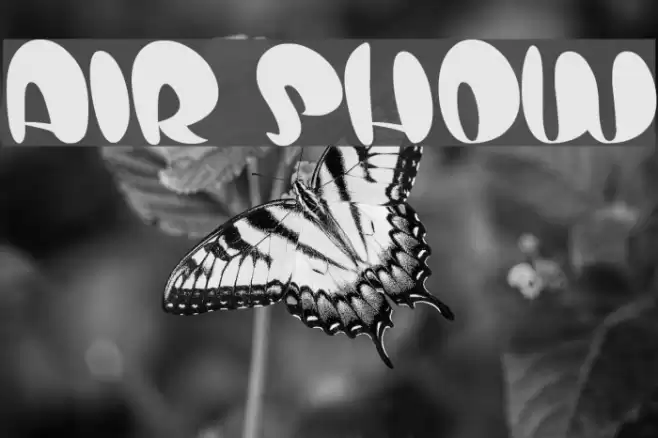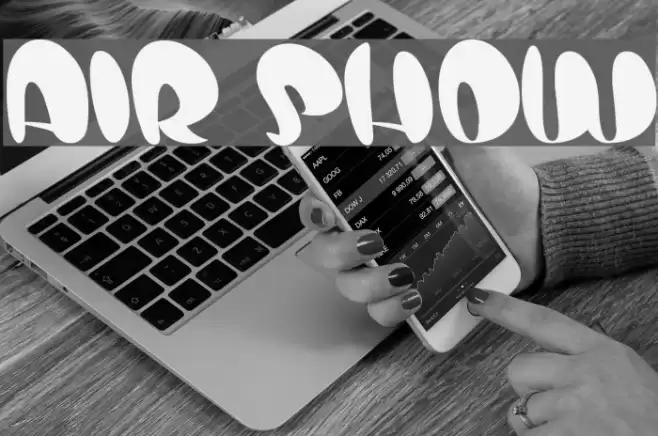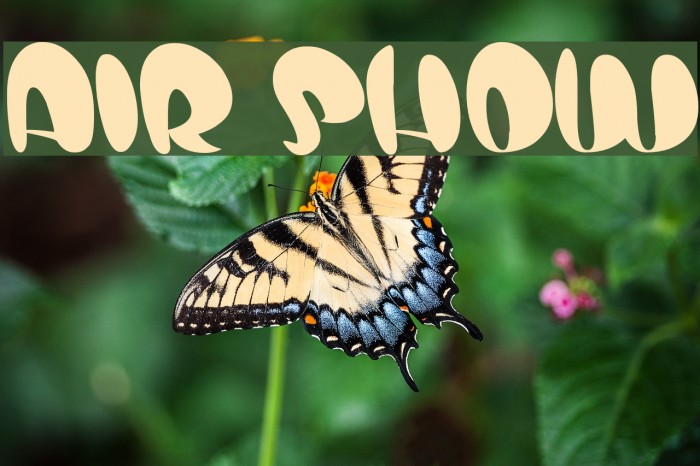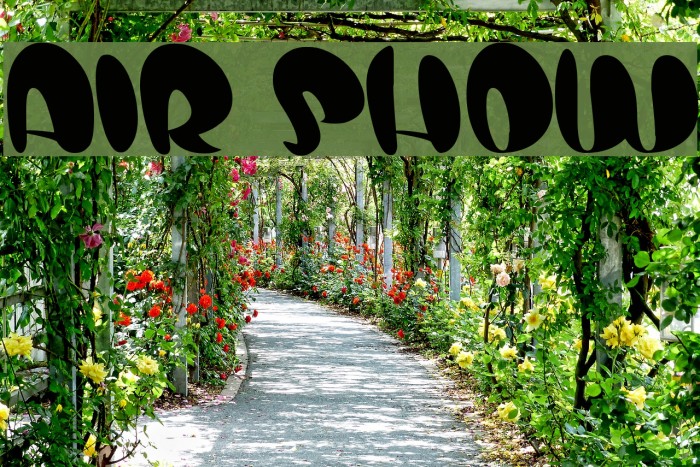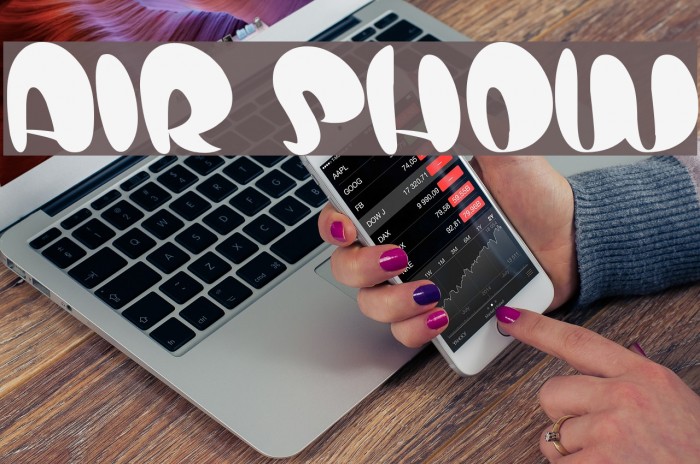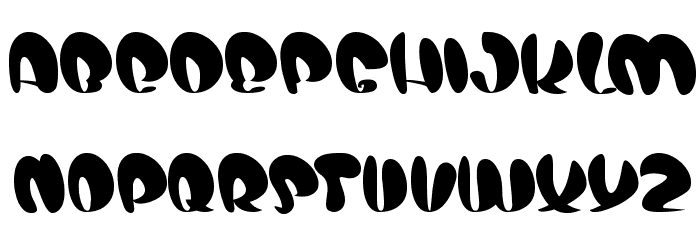
air show Font
air show Description
This font features a bold and playful design with a unique, rounded style. Each character is crafted with a thick, heavy stroke that gives it a substantial presence. The letters have a whimsical, almost cartoon-like quality, with exaggerated curves and a bubbly appearance. The overall look is both fun and eye-catching, making it ideal for creative and informal applications. The font maintains a consistent weight throughout, ensuring readability despite its decorative nature. Its distinctive style is perfect for projects that require a touch of personality and flair.
A bold, playful font with a rounded, cartoon-like style from Fancy fonts.
- Proposed Projects: Ideal for children's books, playful branding, party invitations, and creative posters.
- Overall Style: Playful, Whimsical